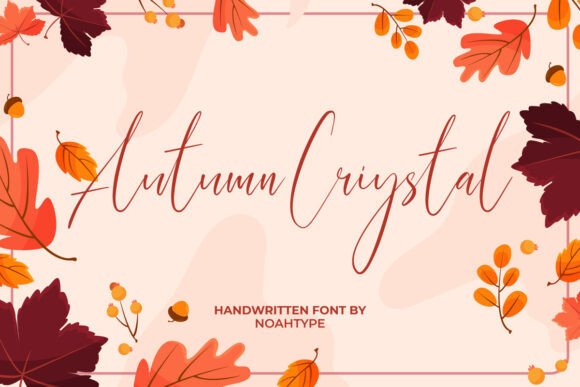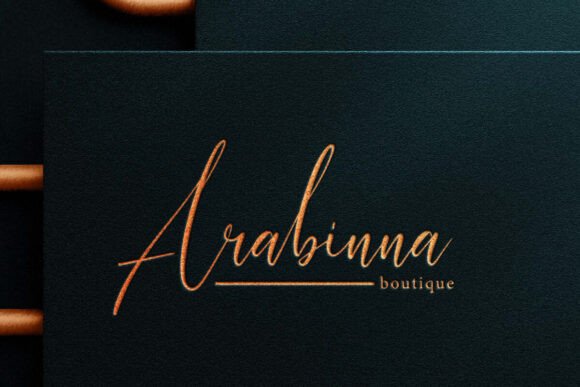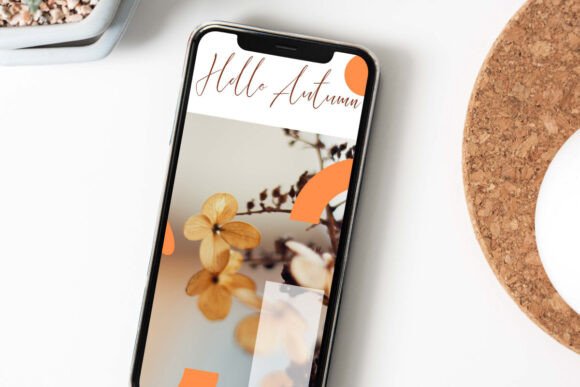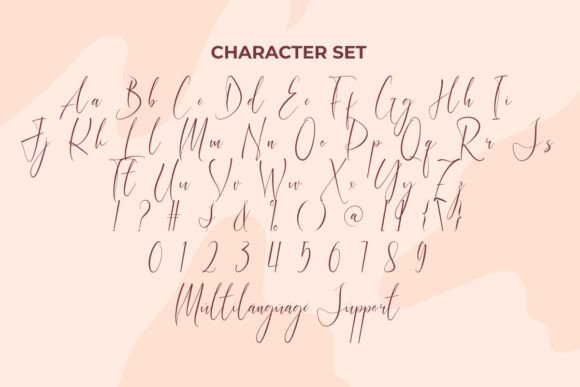
Autumn Crystal Font: Elegant Calligraphy Font for Wedding Design
About the Autumn Crystal Font
The Autumn Crystal Font offers a perfect balance of form and function for your design needs. Autumn Crystal Font is a beautiful, stylish calligraphic handwritten font. The beauty of this font can maximize every design you make and add a luxurious impression. It will be suitable for any industry, such as advertisement, boutique, event or wedding organizer, fashion, florist, jewelry, printing, publishing, restaurant, and more!
Autumn Crystal’s elegant, calligraphic style shines in headlines, logos, short quotes, and invitations. Its luxurious feel makes it ideal for branding projects in the fashion, beauty, or wedding industries, as well as for high-end packaging design. However, its intricacy makes it unsuitable for body text or UI elements where readability is paramount. Avoid using it for large blocks of text.
This font’s inherent sophistication pairs well with clean sans-serif fonts like Montserrat or Lato for a balanced contrast. For a more traditional feel, consider pairing it with a classic serif such as Garamond or Playfair Display. A touch of playful modernity can be achieved by combining it with a geometric sans-serif font like Futura or a minimalist script like Great Vibes (used sparingly).
Autumn Crystal exudes a refined, sophisticated personality, best suited for projects requiring a touch of upscale charm and visual appeal. Its inherent elegance makes it a strong choice for conveying luxury and exclusivity.
Autumn Crystal Font Usage Examples
Autumn Crystal Font Example